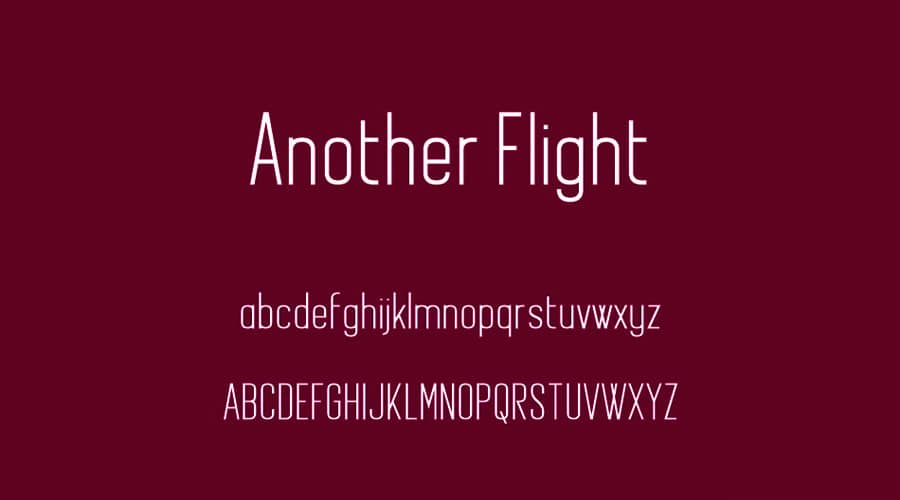
Another Flight font
Another Flight font is a top notch Sans serif font planned and posted on January 12, 2019 by Chequered Ink.
Another Flight is also ideal for marketing projects, home textile designs, packaging design, or as a classy text interface to any grey background.